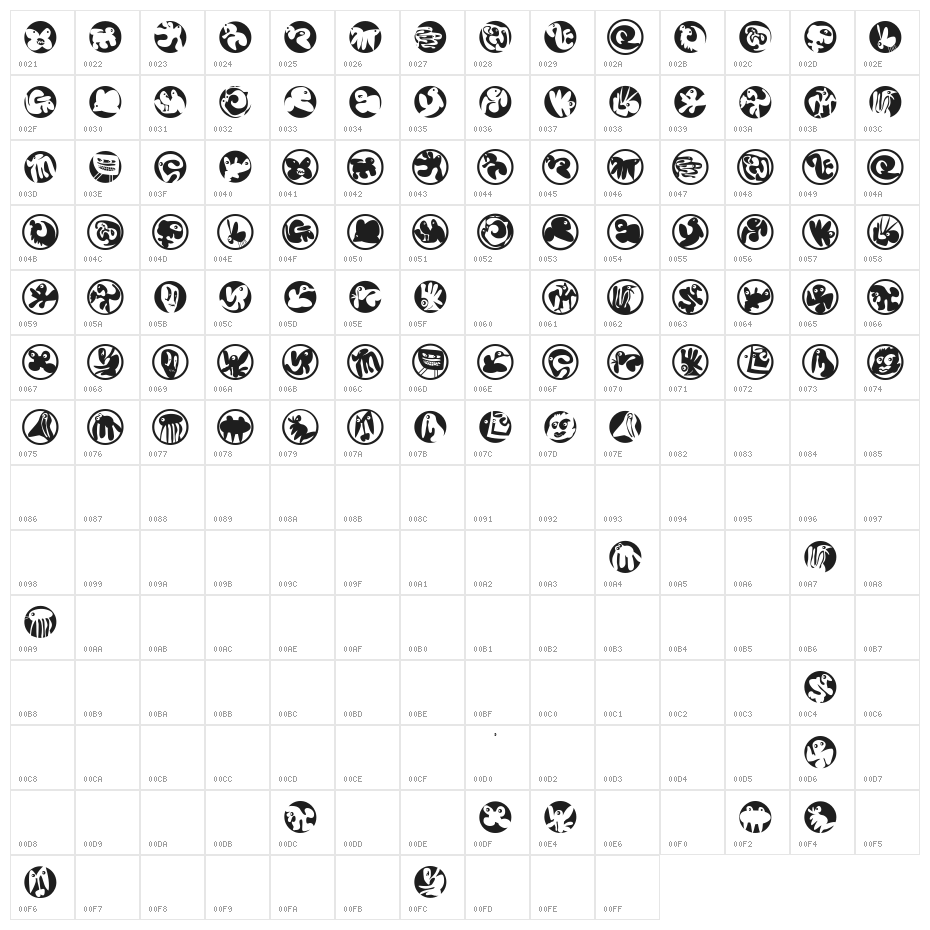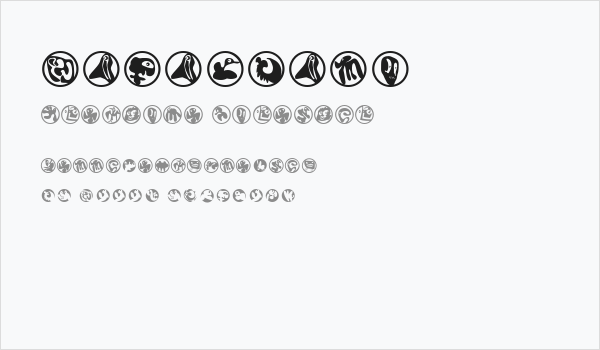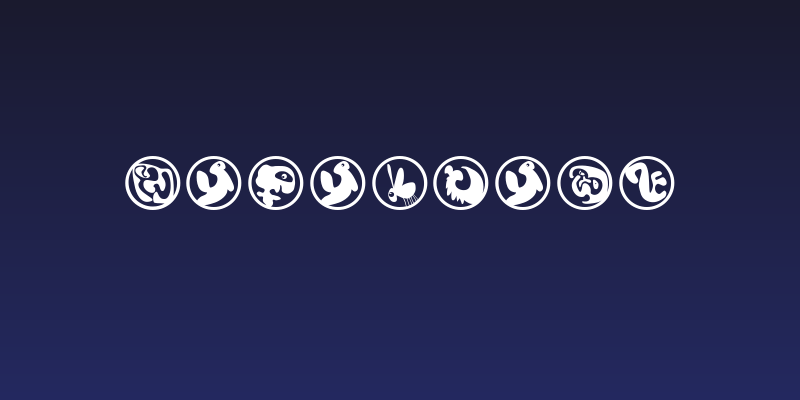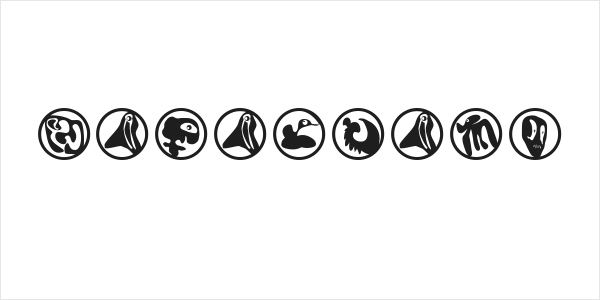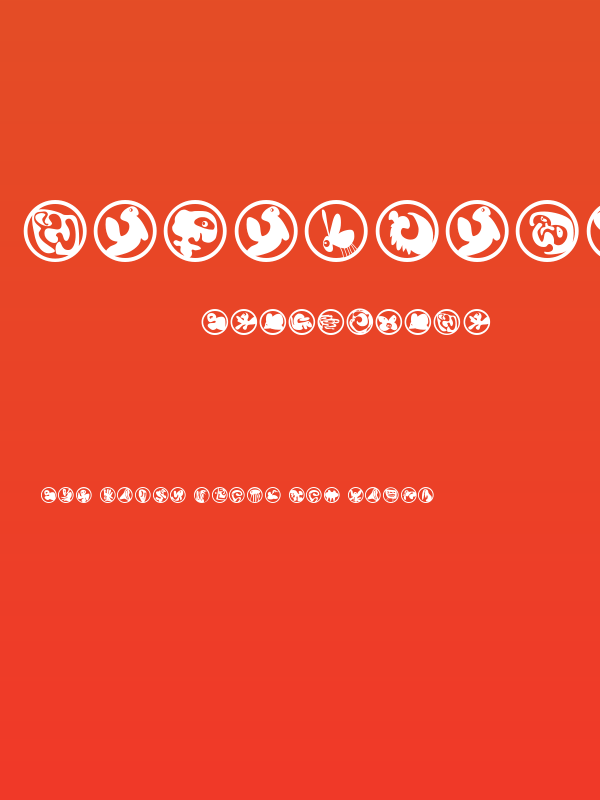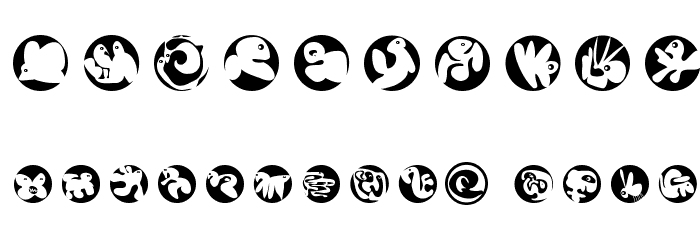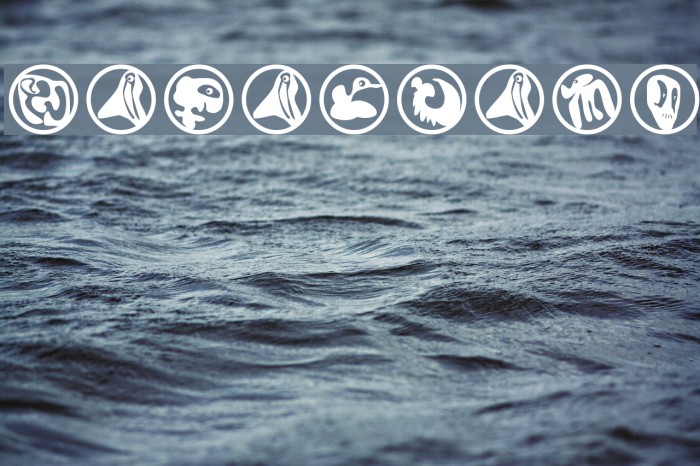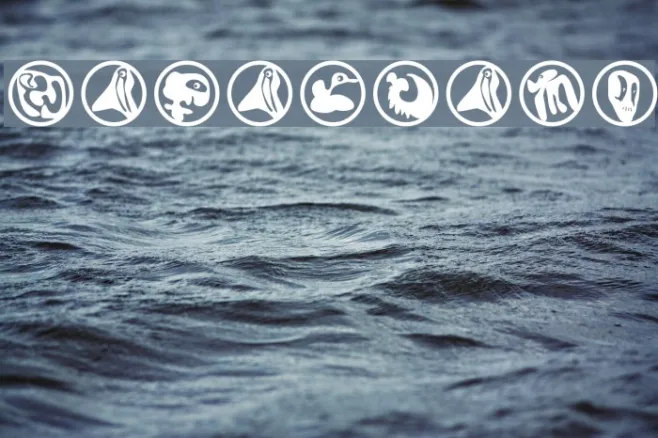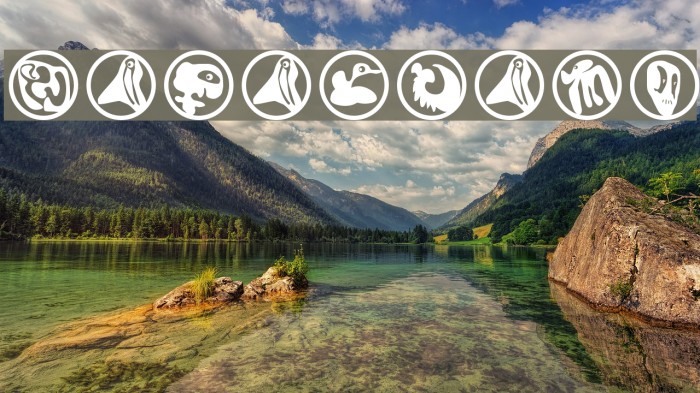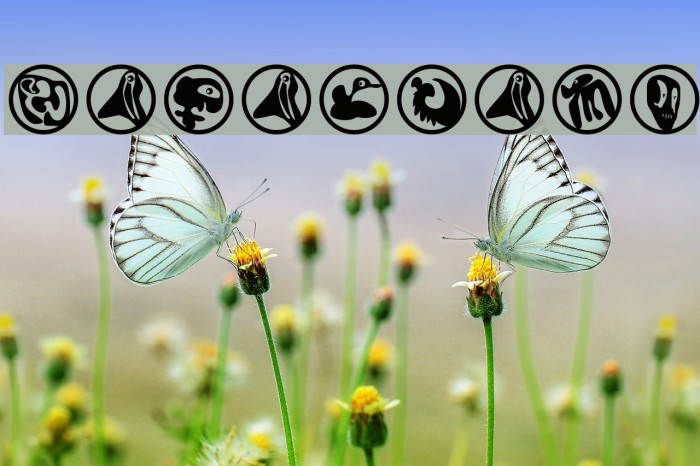
HuMunKuli Font
HuMunKuli Description
A highly decorative and playful font featuring abstract, animal-inspired glyphs enclosed in bold circular shapes. Each character is uniquely illustrated, making the set visually engaging and whimsical.
| Overall Style | Decorative, Playful, Whimsical |
| Use Case | Logos, Posters, Children's materials, Display titles |
| Proposed Projects | Children's books, educational materials, playful branding, posters, creative packaging, art projects. |